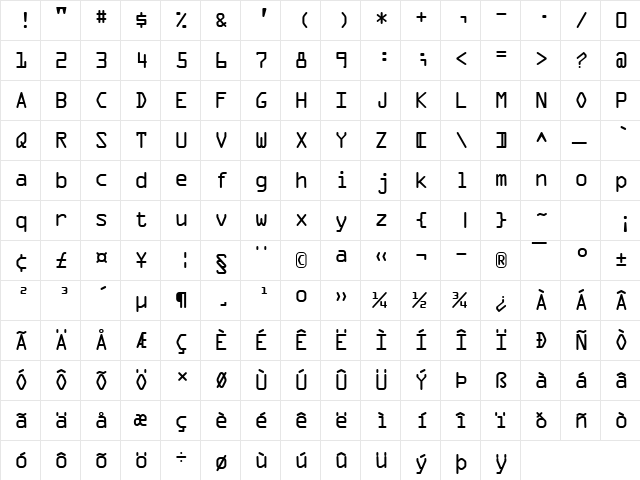
OCR A Extended Regular
Design Context for OCR A Extended Typeface
OCR A Extended takes a measured approach to typography — its balanced proportions and neutral character make it a reliable workhorse for both digital and print work.
Pro Tip: Pair OCR A Extended with a font of contrasting weight or personality to build a more expressive typographic hierarchy.